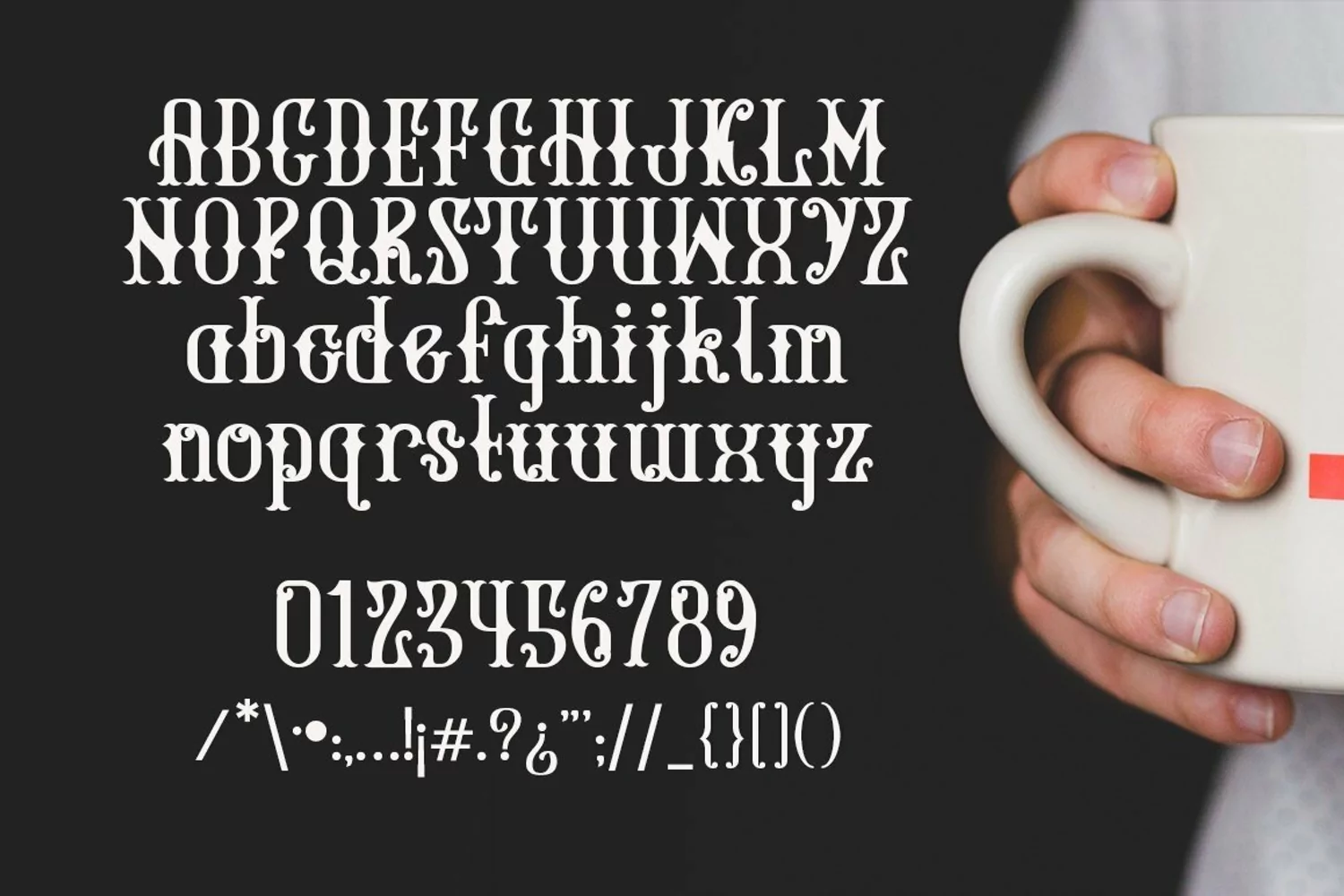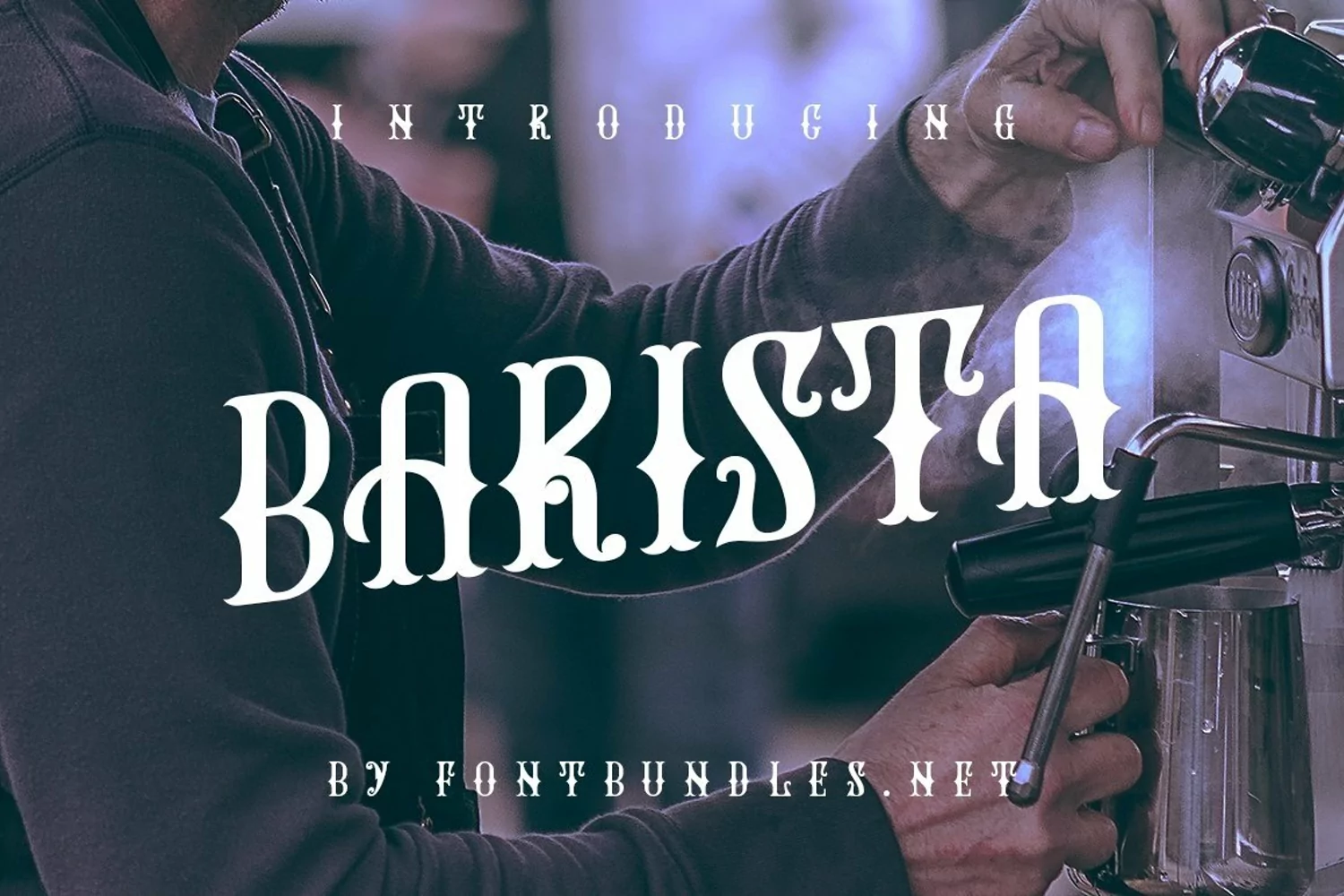
Web Font Barista
Barista is both stylish and bold in its nature and works particularly well for a range of design and craft projects. This unique font oozes character and class.